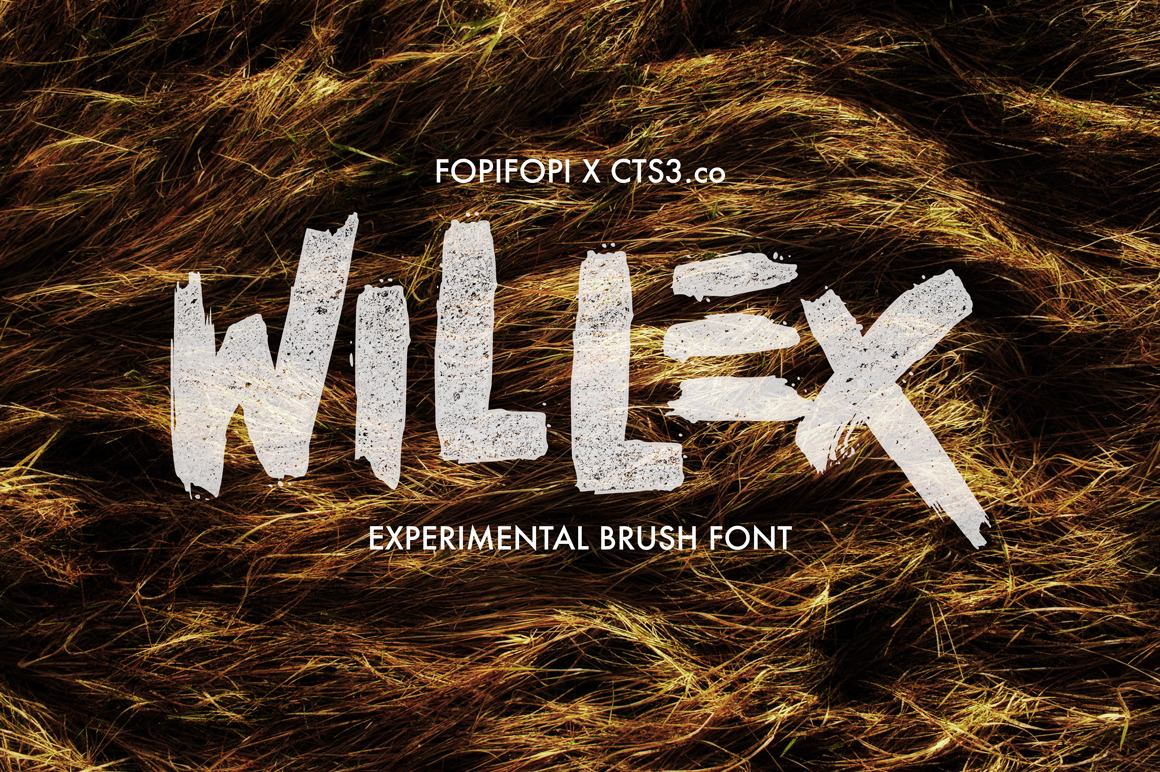
The new world is on when we experiment. Are you into it with us? This brave new world is named WILLEX! Made from ink & tints and manual hand-drawing brush to make a natural mess, based on reality that perfection is boring and imperfection’s the touch of art.
With WILLEX; you can polish a good display, use it for labeling, clothing needs, movie sceens, band logo,film titles, gigs, or cover album. It comes with 241 characters included Uppercase, Lowercase, Numbers, Punctuations, Currency, and Accents. Available in .OTF and .TTF formats
It’s also a collaboration of FOPIFOPI x CTS3.co. You’re very welcome to join the world of WILLEX and create everything you want to with it, play as a creator: create unlimitedly!